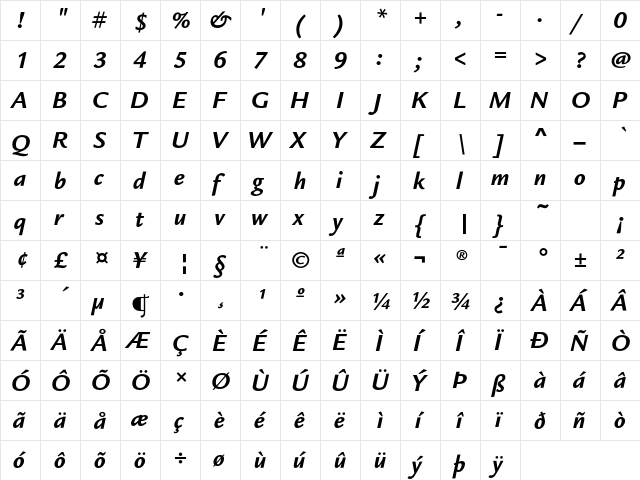
LegacySansEF BoldItalic Font Preview
LegacySansEF BoldItalic
Design Context for LegacySansEF Typeface
LegacySansEF is a composed and adaptable typeface that performs quietly and consistently across a wide range of design contexts. The slanted form adds forward momentum and visual energy. The heavy weight commands attention and anchors typographic hierarchies.
Pro Tip: Try LegacySansEF for annotation and caption copy alongside an upright companion — the contrast in angle creates a dynamic but ordered typographic system.